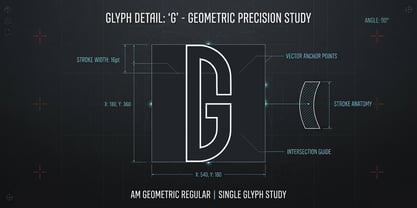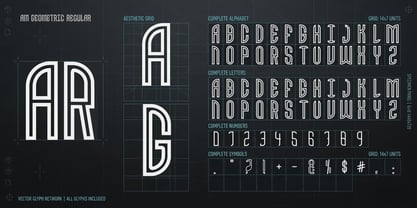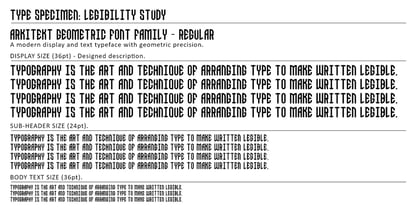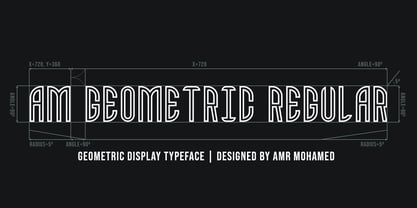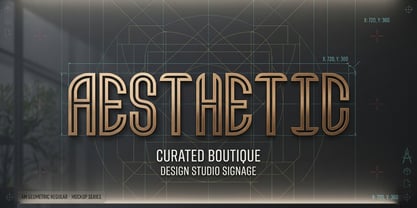
AM Geometric Regular
La familia tipográfica AM Geometric Regular fue diseñada por Amr Mohamed y publicada por Amr Mo Vertex. AM Geometric Regular contiene 1 estilos. Más información sobre esta familia
As a graphic designer, I’ve always been captivated by the intersection of strict mathematics and visual aesthetics. AM Geometric was created to be a display typeface that not only embodies modernity but also achieves structural perfection. The entire concept is anchored in a rigorous grid system and precise angles, resulting in a font where every glyph is meticulously calculated while remaining open and readable. The signature inline/double-stroke style imparts an architectural, almost industrial feel to the letters, making them stand out prominently in large formats. This typeface is highly versatile, excelling particularly in impactful headlines. It serves as an ideal choice for tech startup branding, modern architectural signage, boutique logos, sci-fi poster designs, and editorial layouts that require a futuristic touch. Special attention has been given to legibility and spacing, ensuring that despite its distinct geometric personality, it maintains a clean, contemporary rhythm across both digital screens and print materials.
Amr Mo Vertex is an independent digital type foundry dedicated to crafting display typography and innovative letterforms for modern brand identities. Founded with a strong focus on geometric precision and structural clarity, the foundry specializes in creating highly functional, display-ready typefaces tailored for graphic designers, art directors, and branding agencies. Our design philosophy bridges the gap between architectural aesthetics and versatile digital design, ensuring that every character serves as a standalone piece of art while maintaining perfect cohesion within a typographic system. We are committed to providing premium, meticulously engineered fonts that empower creators to build striking logos, impactful headlines, and future-proof visual identities.